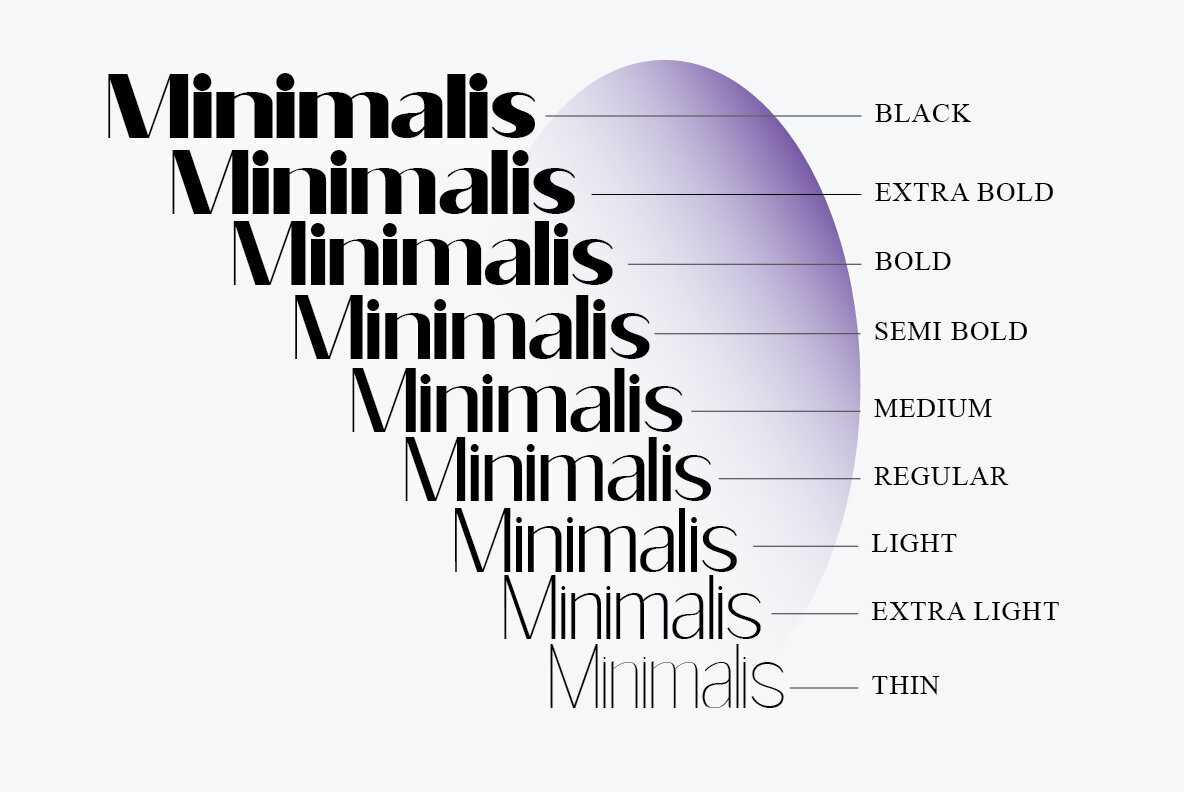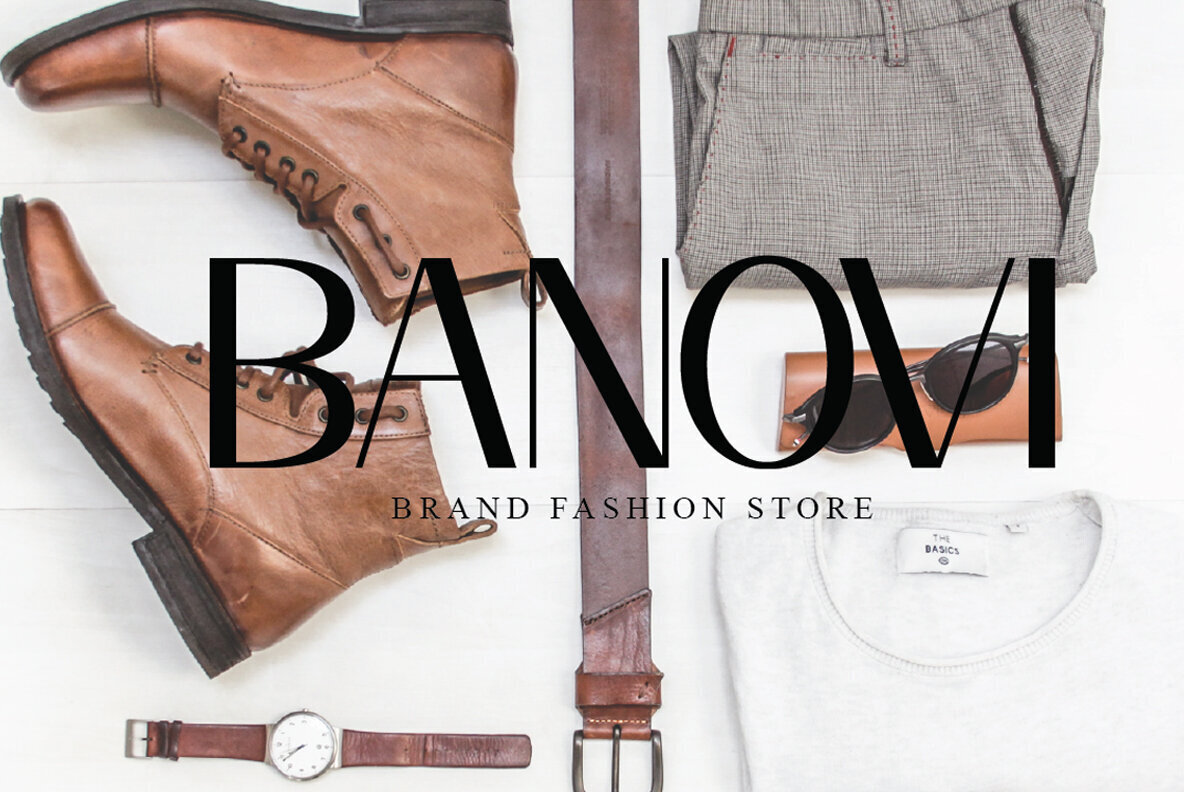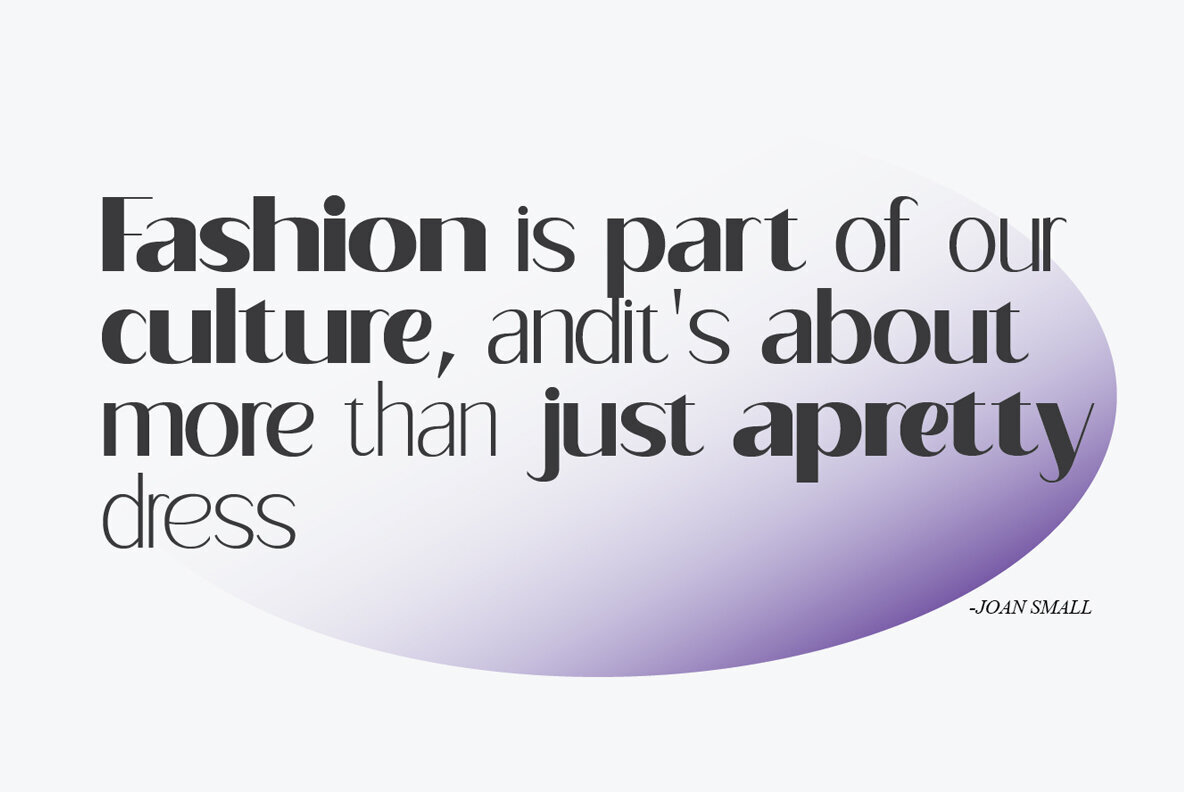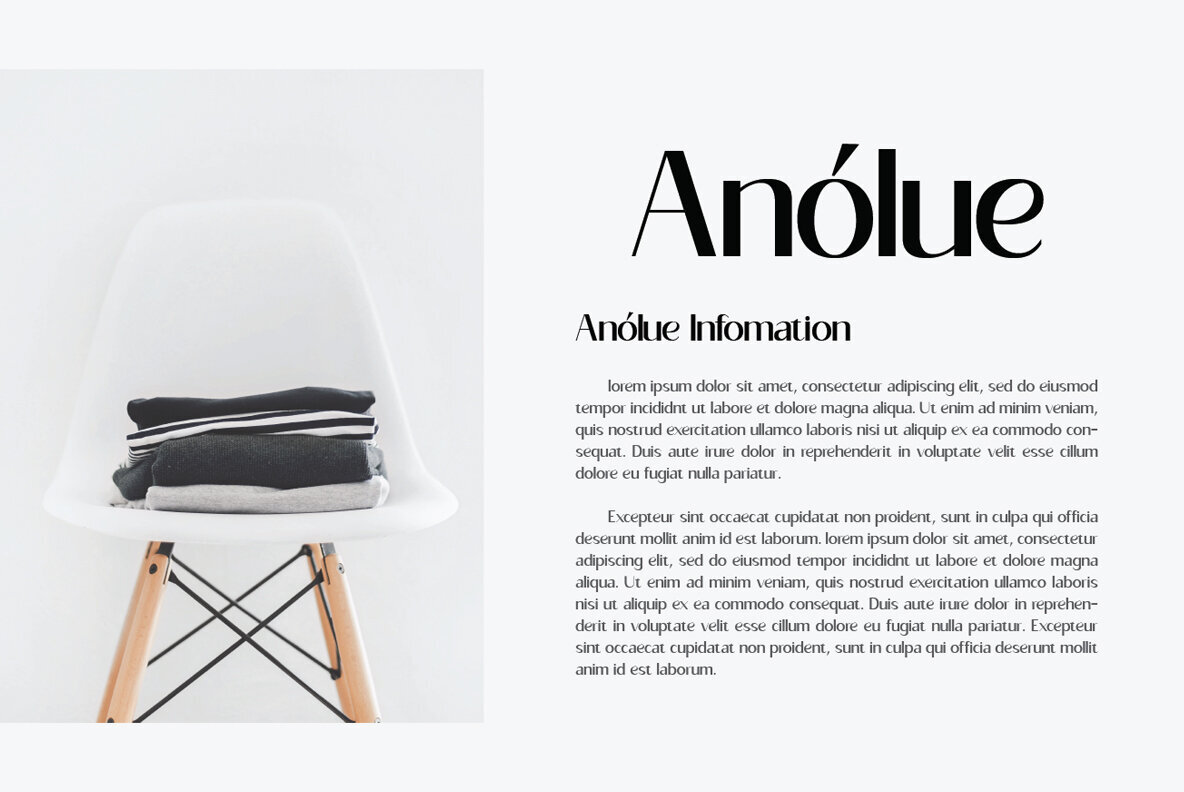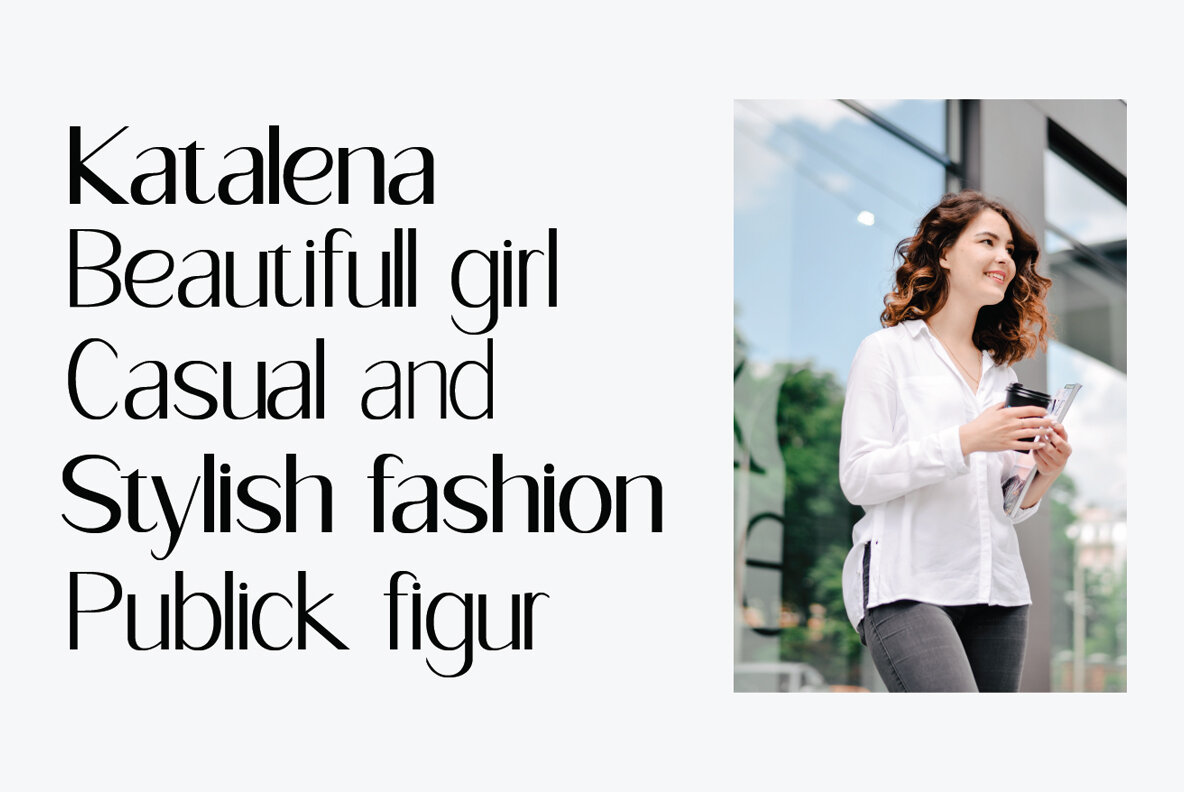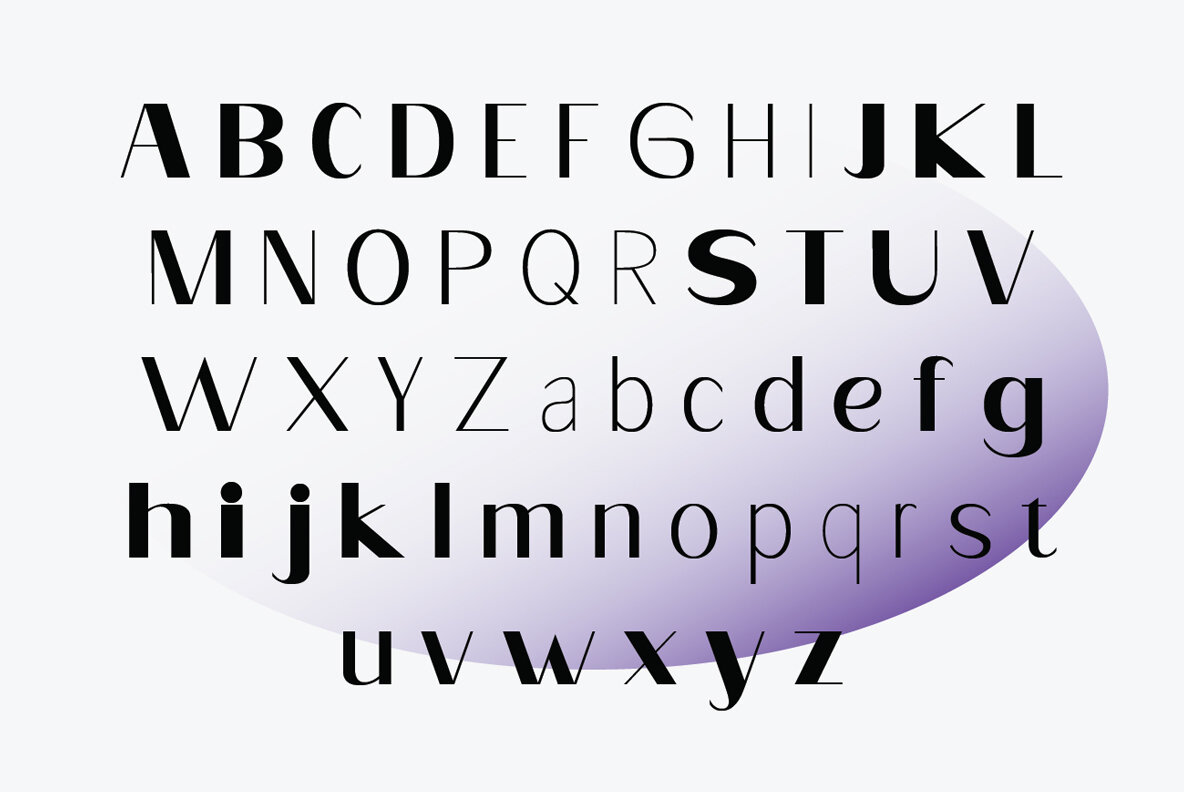
Feragie Font
Feragie stands out as a modern collection of sans-serif fonts, designed to lend a distinct character to your creative projects. This versatile typeface spans across nine families, each ranging from a delicate thin to a robust black weight. Its adaptability makes it suitable for applications ranging from magazine layouts to digital branding, posters, and websites.Feragie: A Modern Sans-Serif Typeface Family